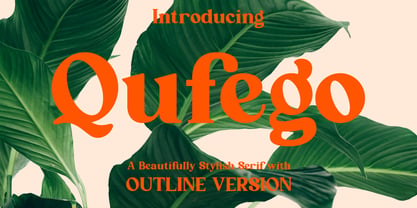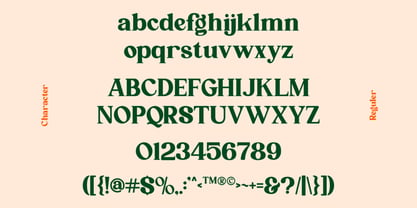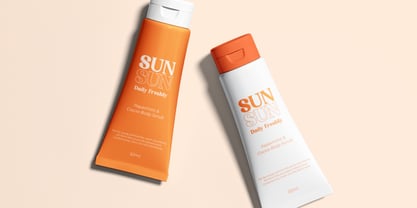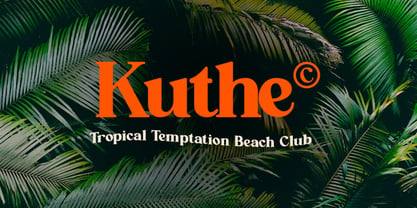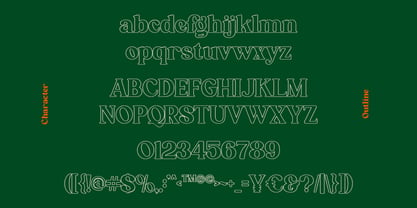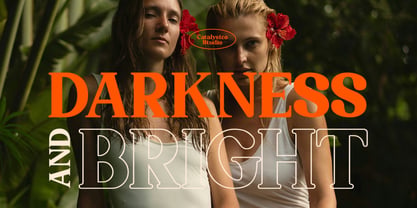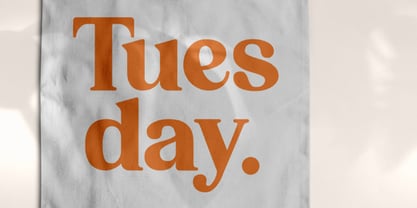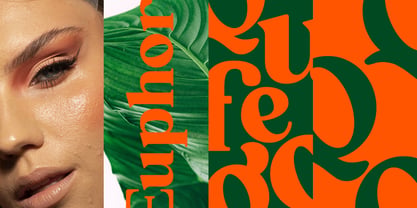
Qufego
Qufego is a beautifully stylish serif typeface combining strong classical curves with a modern, artistic edge. It features both regular and outline styles, offering elegant contrast and versatility for bold headlines or refined editorial layouts. With high legibility and timeless character, Qufego delivers sophistication and warmth suitable for luxury branding, fashion magazines, logo design, and packaging. Its balanced form and graceful stroke transitions make it ideal for projects that seek harmony between vintage charm and modern flair.